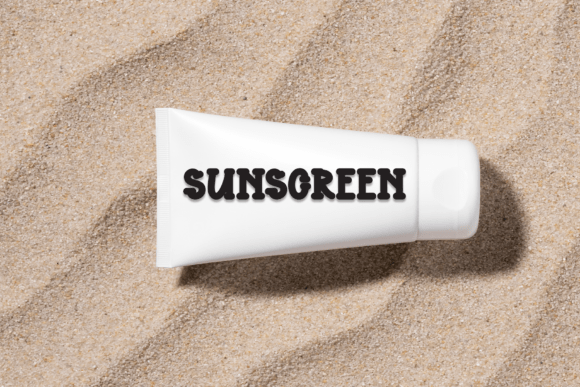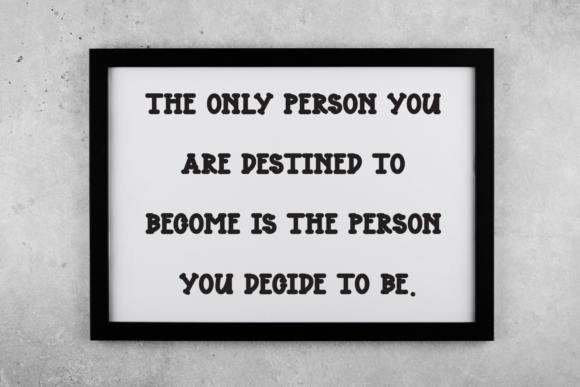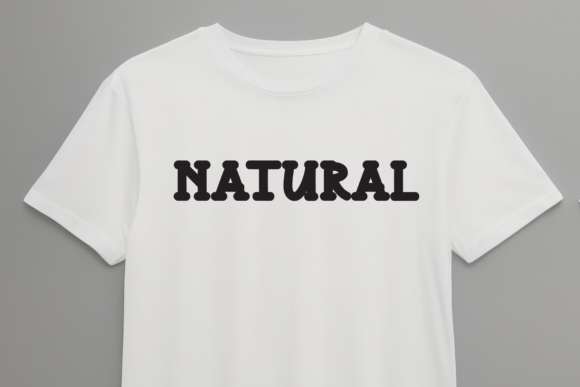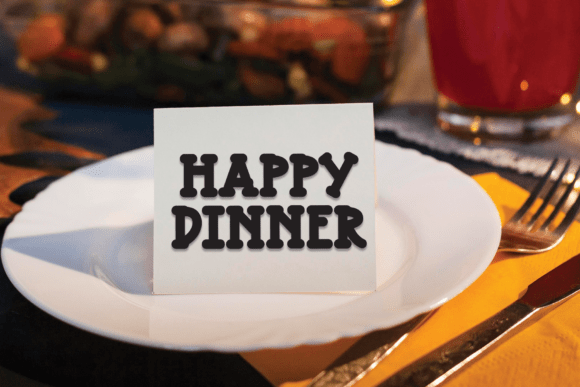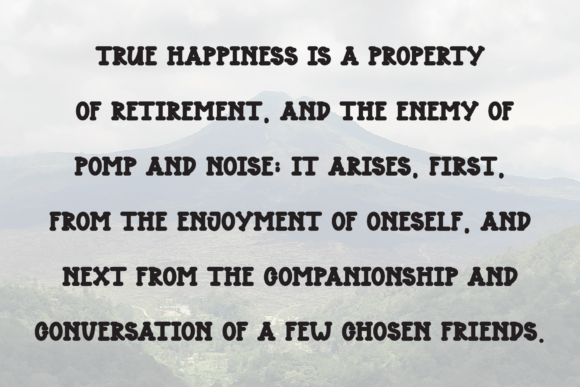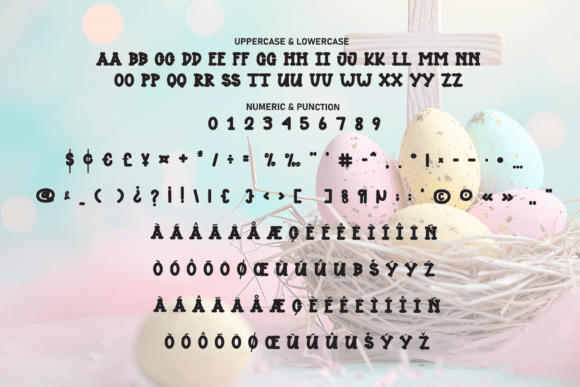
The Easter Font: A Fresh and Friendly Design Companion
I’ll never forget the time I was working on a last-minute Easter-themed project for a client, and I just couldn’t find the right font to match the cheerful vibe I was going for. The client wanted something that felt both playful and polished, but everything I tried seemed to fall flat. That was until I stumbled upon the Easter font – a casual and neat display font that radiates a fresh, friendly vibe. With its clean lines and relaxed structure, it’s perfect for packaging, posters, and social media graphics.
So, what makes the Easter font so special? Let’s dive into the good stuff and a few quirks I’ve noticed.
- ✨ Clean and modern design: The Easter font boasts a sleek, contemporary look that’s perfect for designs that need a bit of sophistication.
- ✅ Ease of readability: Even at smaller sizes, the font remains clear and easy to read, making it versatile for various applications.
- 🎉 Versatility: From packaging to posters and social media graphics, this font adapts seamlessly to different design needs.
While the Easter font is incredibly useful, there are a couple of things to keep in mind:
- 🤔 Limited use in very formal contexts: Given its casual nature, the Easter font might not be the best fit for very formal or traditional projects.
The Designer Inspiration Behind Easter Font
The Easter font was designed with the intention of creating a typeface that feels both approachable and polished. The designer aimed to craft a font that could easily be used across various platforms and design applications, from social media to packaging. The result is a font that not only looks great but also enhances the overall aesthetic of any project it’s used in.
Q: What makes the Easter font unique?
A: The Easter font stands out due to its fresh, friendly vibe and clean lines, making it perfect for designs that require a casual yet polished look.
Q: Is the Easter font suitable for body text?
A: While the Easter font is primarily designed as a display font, its readability at smaller sizes makes it versatile enough for use in body text, especially in designs where a friendly tone is desired.